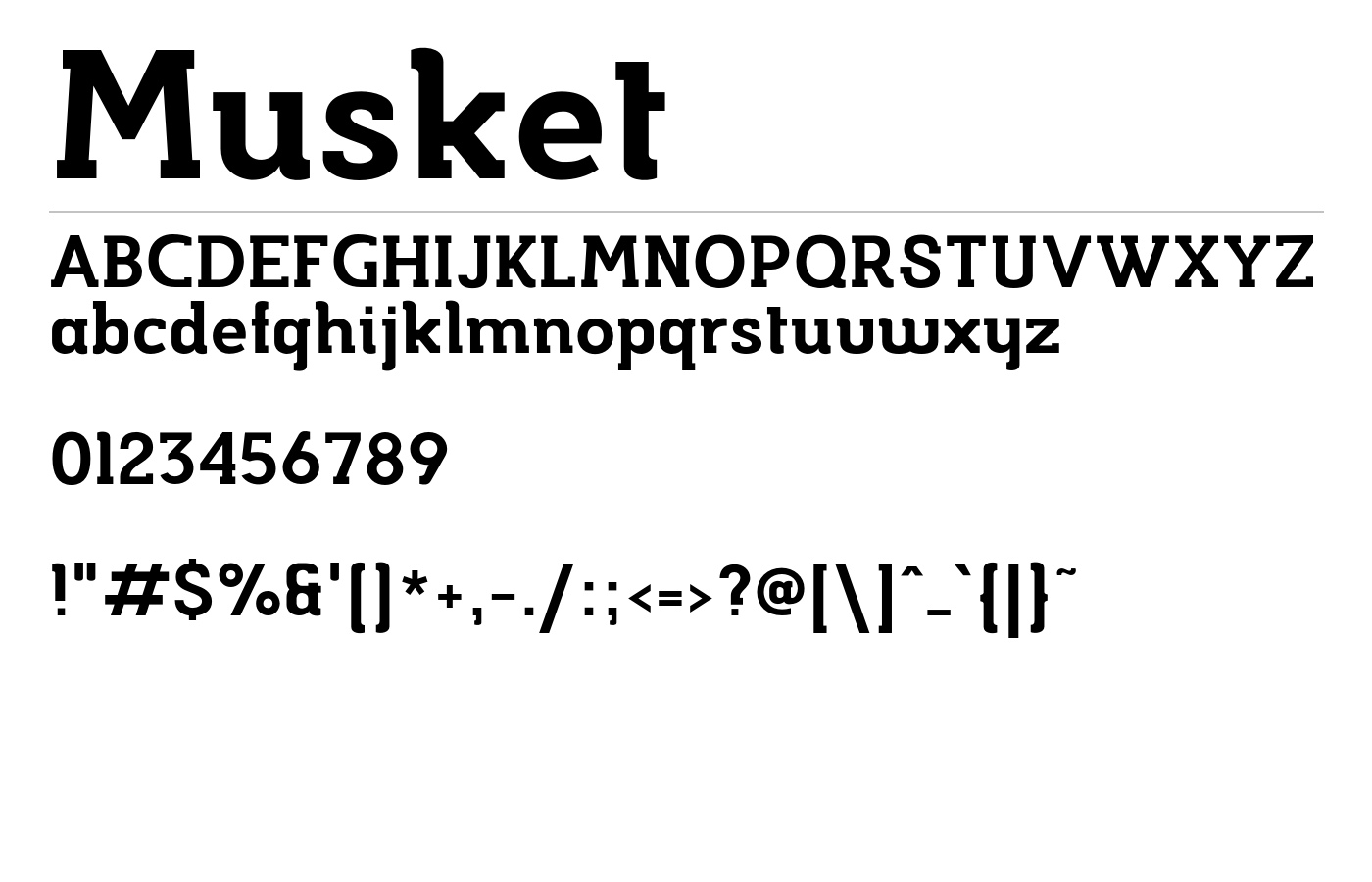
Musket is a bold slab serif font with a strong, confident presence and clear readability. Its sturdy, block-like serifs combined with a moderate x-height and low contrast between thick and thin strokes give it a solid and grounded feel, making it ideal for impactful headlines, branding, and editorial use where a reliable yet distinctive look is needed. This font works well for projects that want to convey strength and professionalism with a touch of classic charm.
Musket Font
About Musket Font
| Font family | Musket Font |
| Category | Slab-serif |
| Release date | 2012-10-18 |
| Designer | Alejandro Barroso |